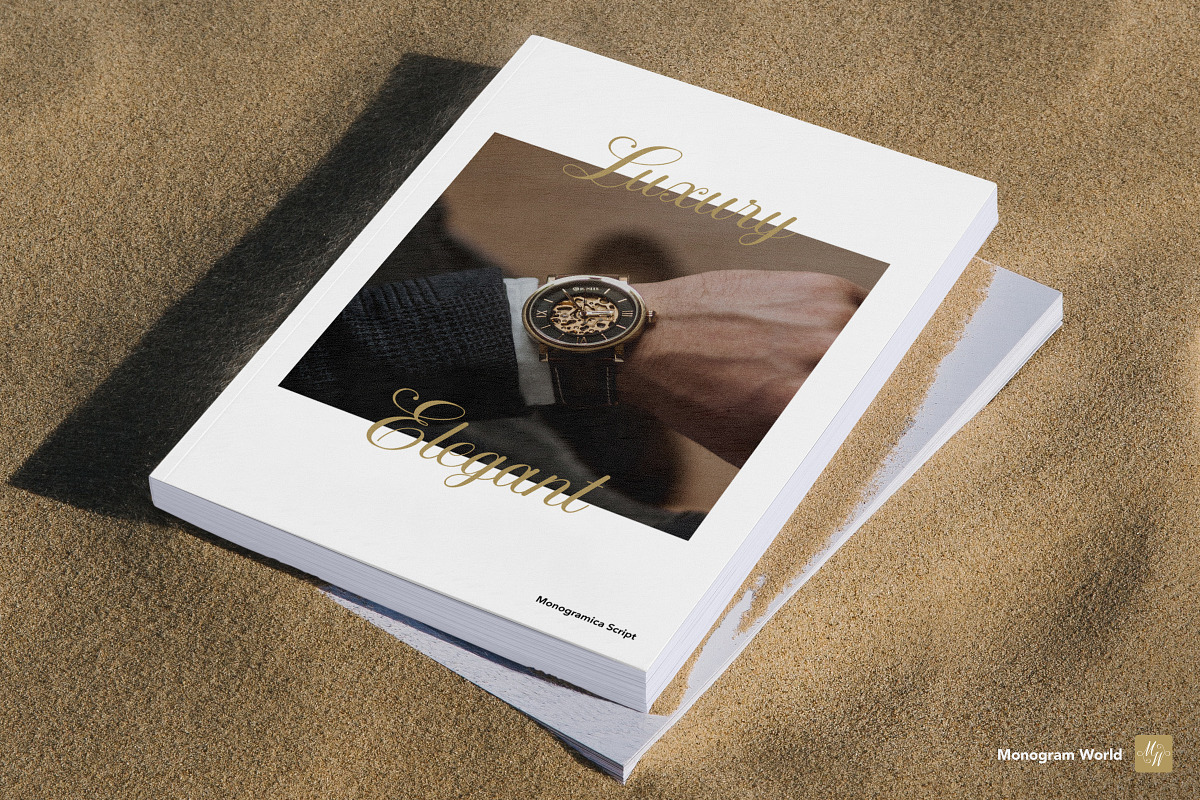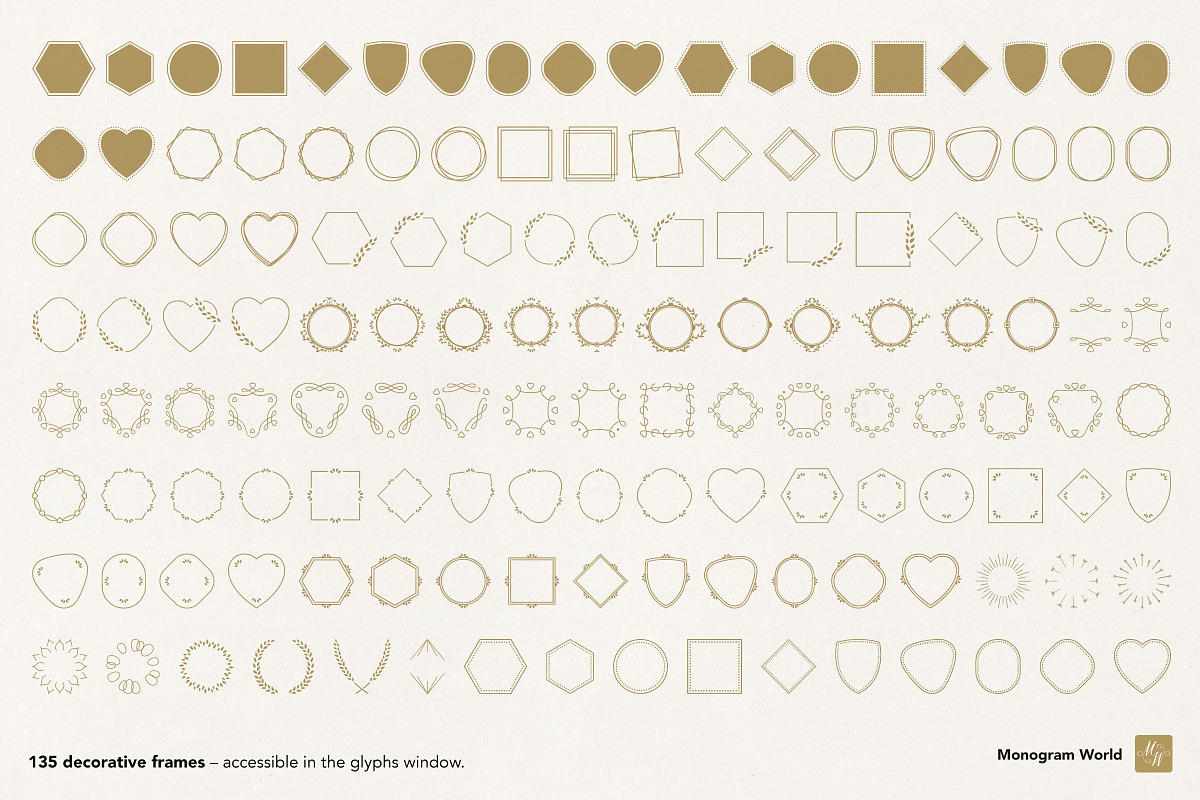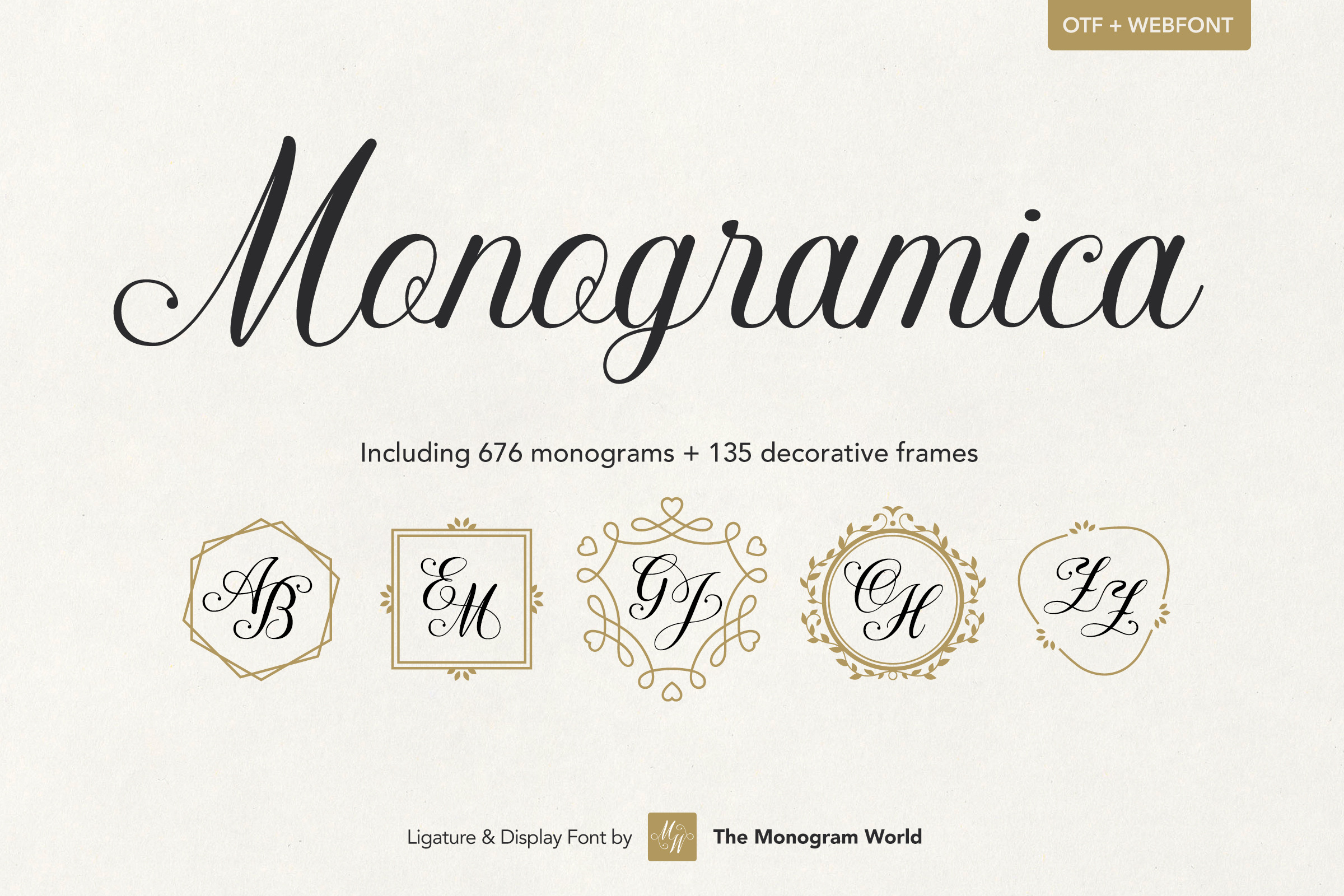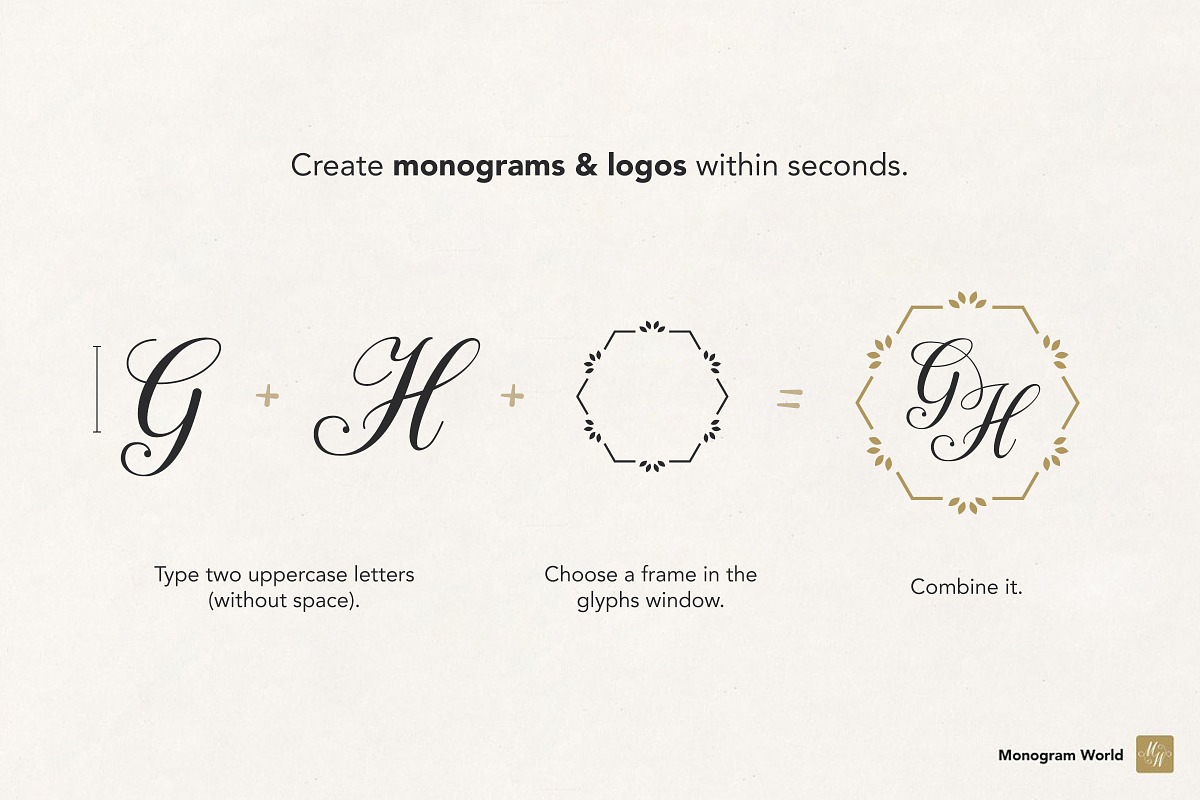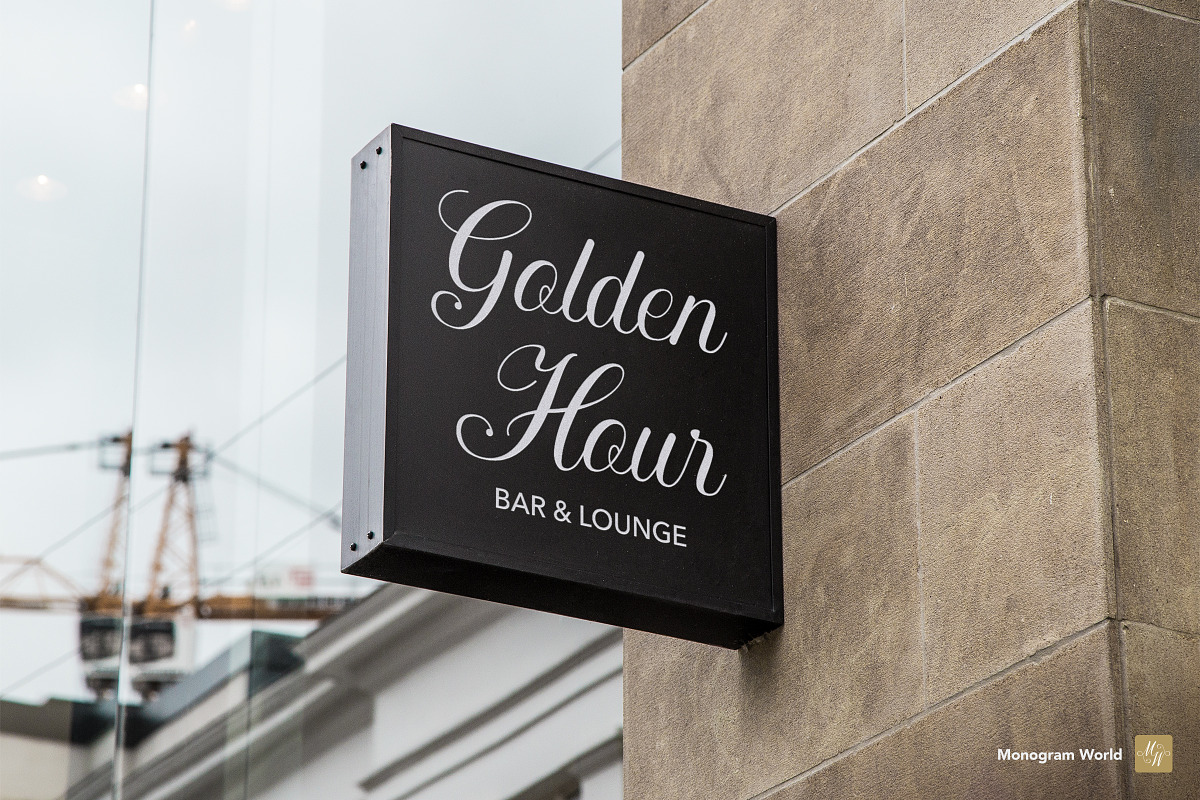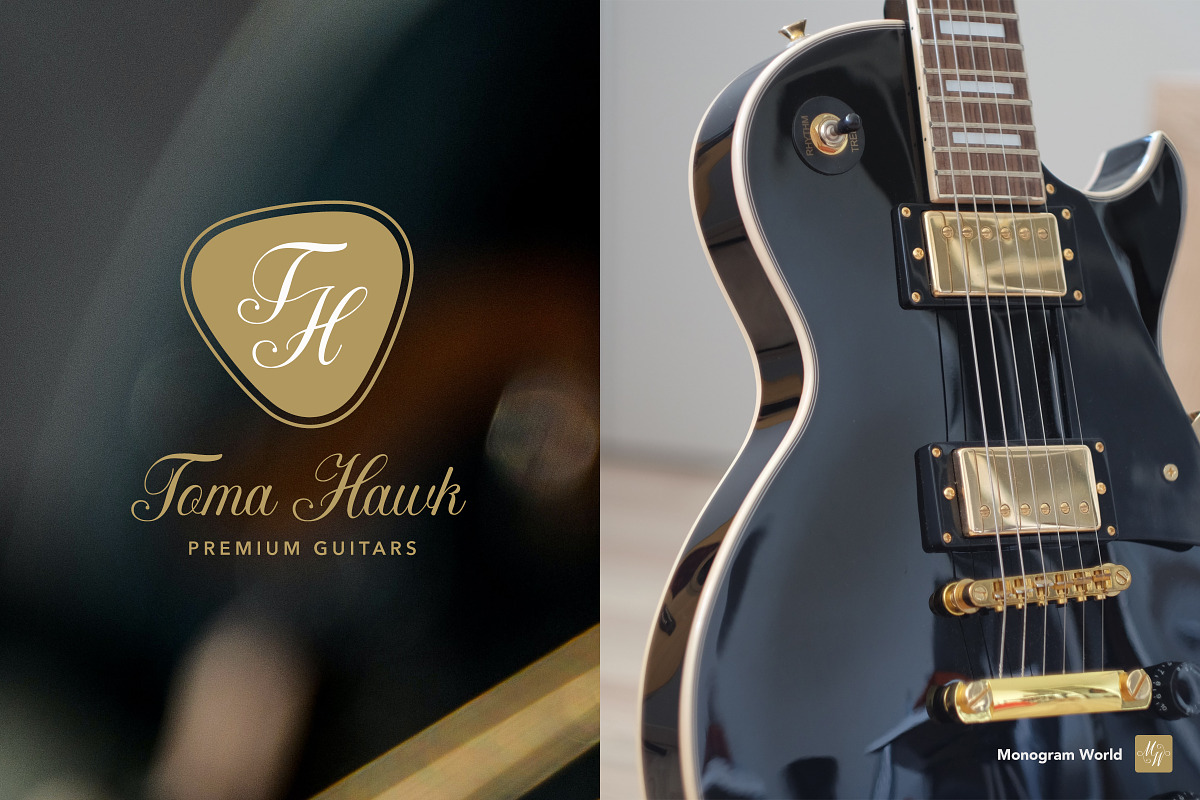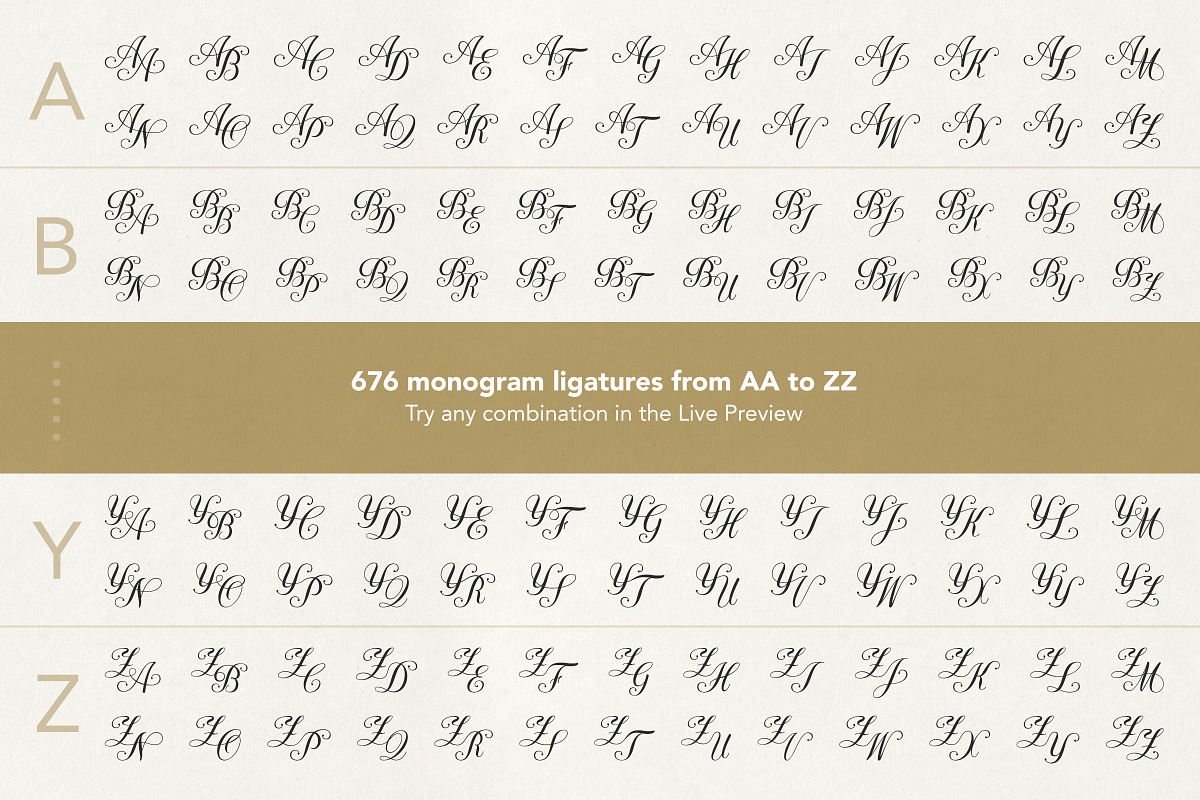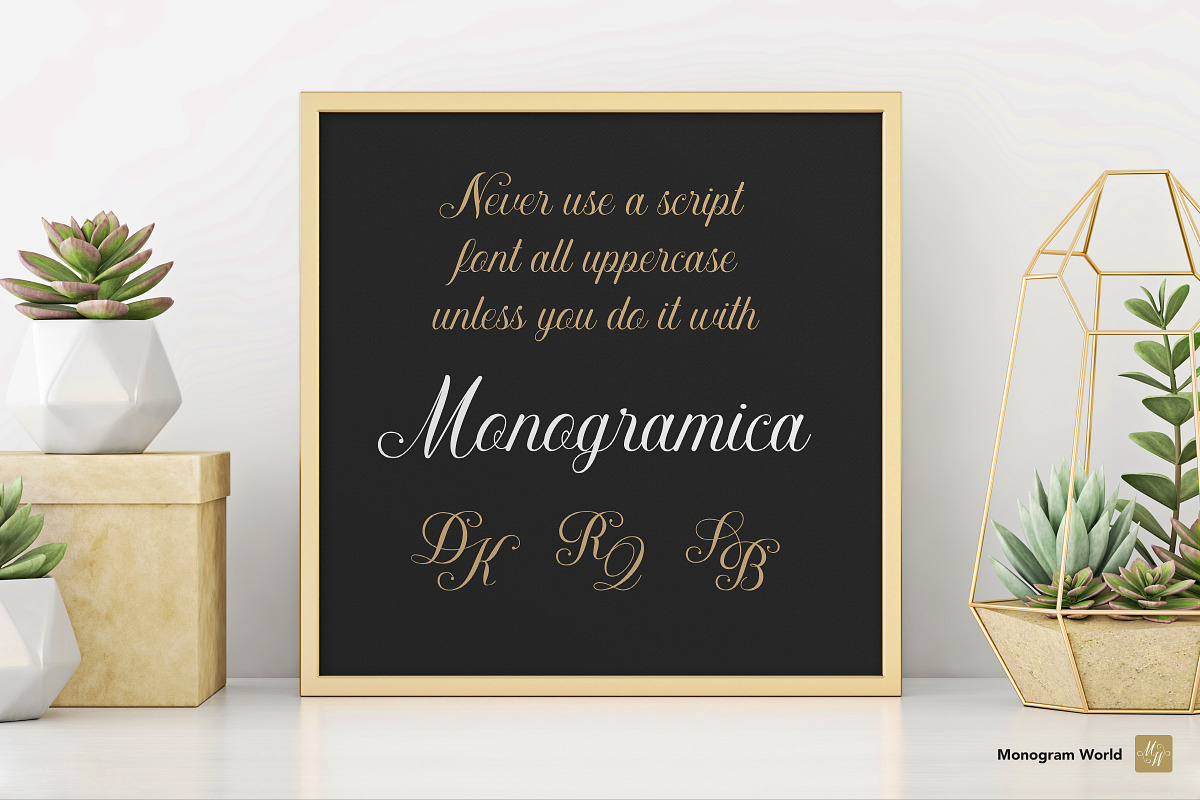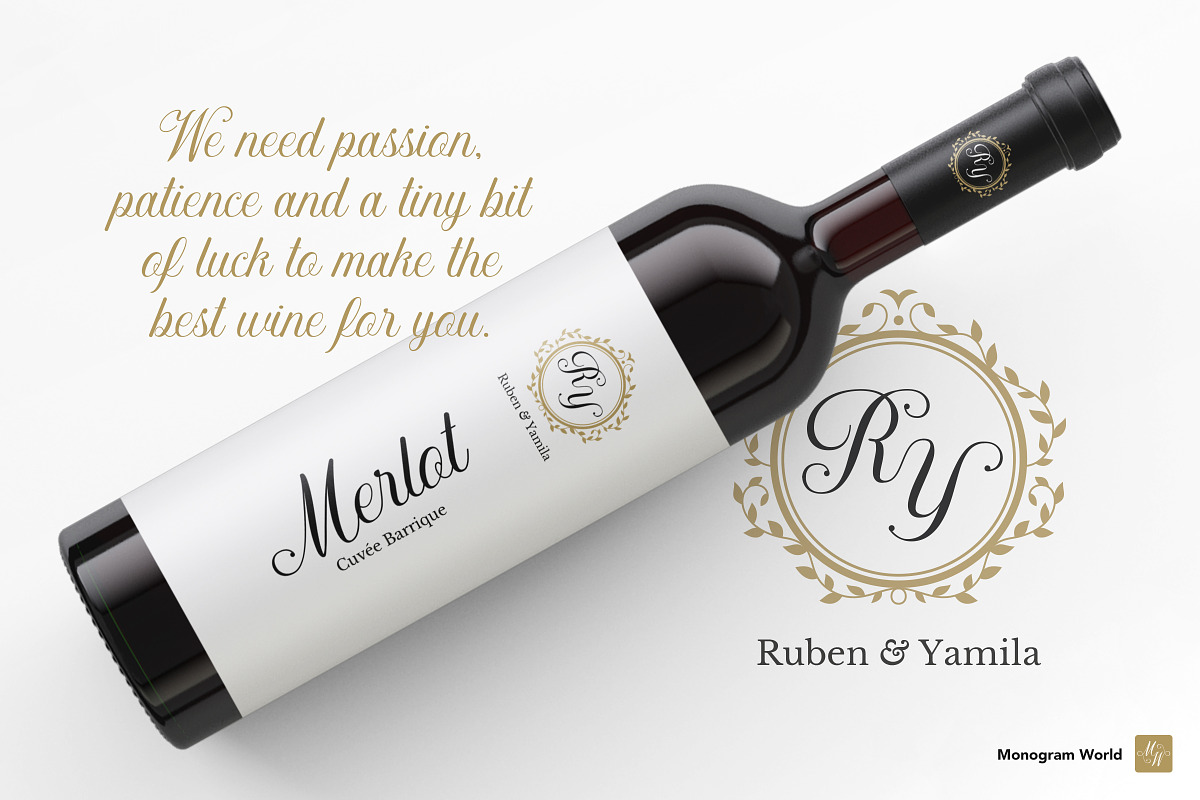
Monogramica - Unique Monogram Font
The first real monogram font!
Monogramica Script is an elegant calligraphy typeface that includes 676 premade uppercase monograms which are easily accessible through automatic ligatures. Just type A + B and the monogram AB appears.
The font contains all two-letter combinations from AA to ZZ as real interlaced lettering artworks + 135 decorative frames. It’s like a versatile logo creator kit for any sophisticated or luxury business like e.g. fashion, jewelry, art ateliers, handicraft studios, wine & spirits, hotels & resorts or fine restaurants & bars.
It can be used for a whole branding identity, product packaging or just for single applications like embroidery, engraving or any other printed item.
The style of Monogramica is based on classic calligraphy type, and yet a bit softer & more modern because of its rounded line tops. The font has got lowercase & uppercase letters, numbers, punctuation and many special characters to cover the major western languages.
- 676 monograms from AA-ZZ (= all 2-letter combinations of the latin alphabet)
- Easy access via automatic ligatures: type A + B and the monogram AB appears
- 135 decorative frames – accessible in the glyphs window (e.g. in Photoshop, Illustrator)
- Create logos & wordmarks within seconds
- 676 monograms + 135 frames = 91,260 possible logo variations
- Elegant display typeface
- Ideal for use in large text like headlines & posters
- Also suitable for short body copy, e.g. quotes